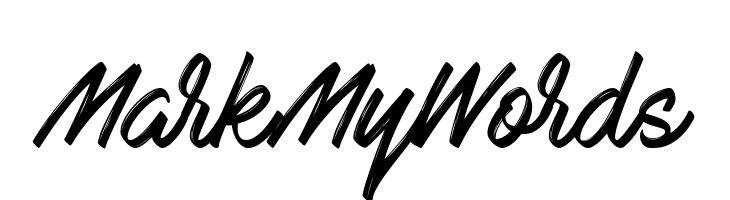
A bold, distressed font with a grunge aesthetic and rough edges.
A playful, bold handwritten font with rounded, irregular characters.
Hand-drawn, sketchy marker-style decorative font.
A playful, handwritten font with rounded, consistent strokes.
A bold, cursive script font with dynamic and expressive strokes.
A bold, cursive script font with fluid, expressive letterforms.
A rugged, distressed font with jagged edges and a chaotic, intense style.
A bold, graffiti-inspired font with dynamic, angular strokes and urban flair.